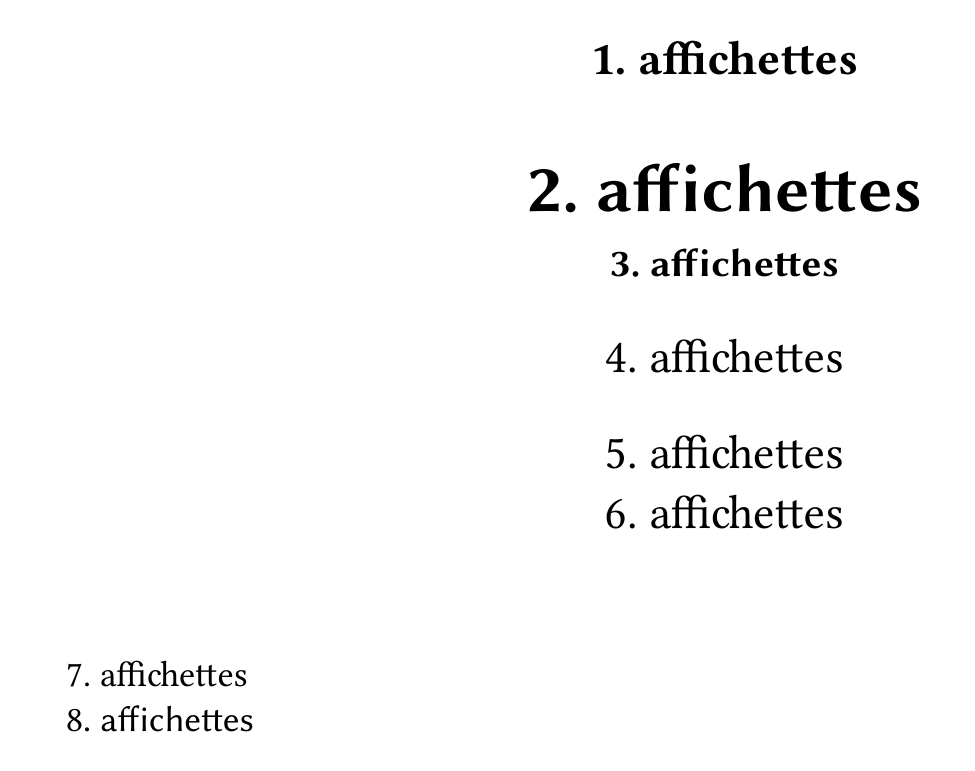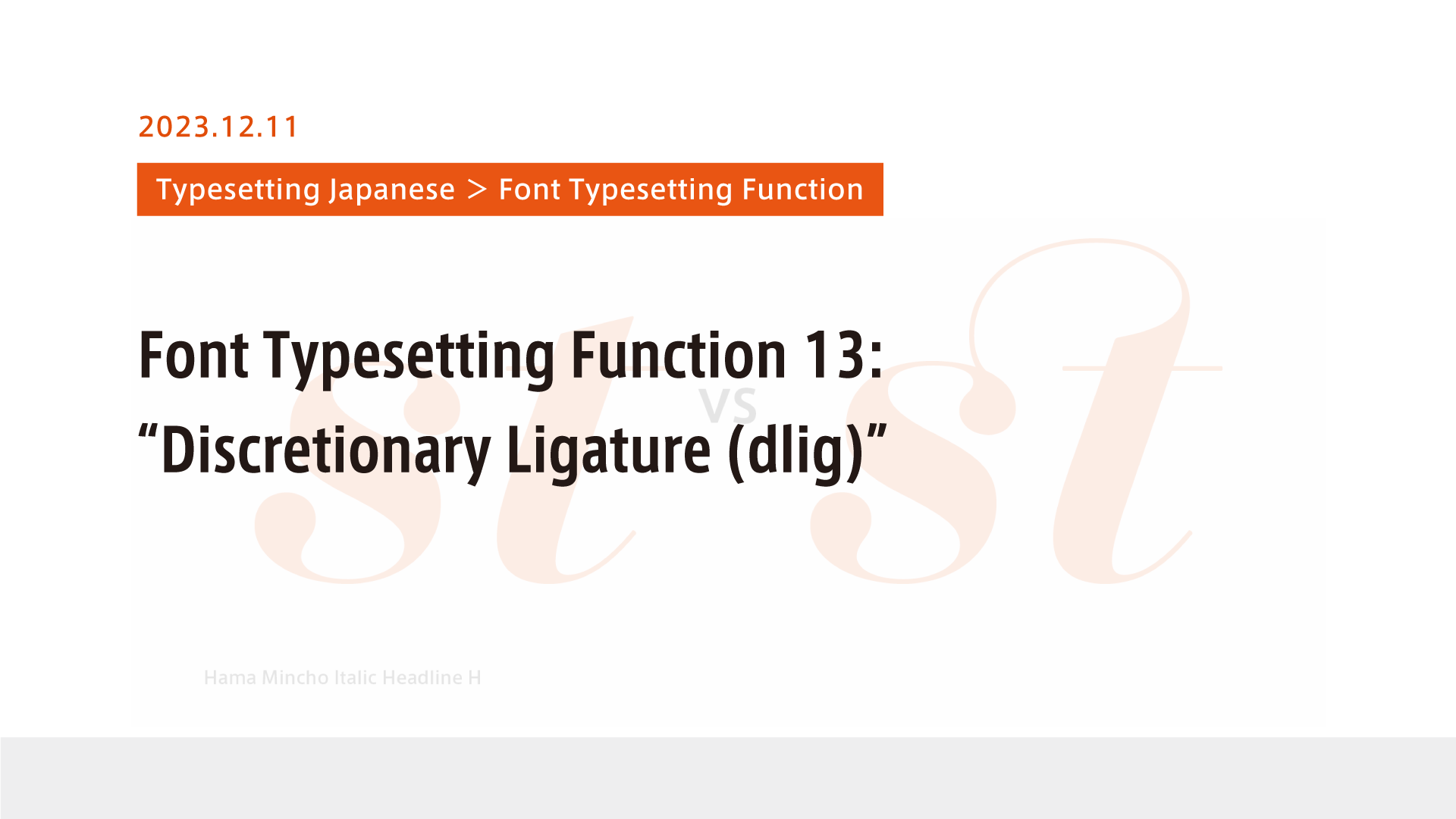
Font Discretionary-Ligatures . The font designer determines that standard ligatures should be used to replace certain letter pairs/triples, whereas discretionary ones may. Not all fonts contain both discretionary and standard ligatures, so it’s useful to check both. Although occasionally found in some type 1 and truetype fonts, discretionary ligatures are more common in newer opentype. A discretionary ligature is more decorative. On the glyphs panel, set the subset of glyphs to discretionary ligatures to access the ligatures included in the font. Many of the new opentype fonts contain more standard ligatures than just these two. A discretionary ligature is more decorative in nature than a standard ligature and should be used at your discretion, as the name indicates.
On the glyphs panel, set the subset of glyphs to discretionary ligatures to access the ligatures included in the font. Although occasionally found in some type 1 and truetype fonts, discretionary ligatures are more common in newer opentype. A discretionary ligature is more decorative. Not all fonts contain both discretionary and standard ligatures, so it’s useful to check both. The font designer determines that standard ligatures should be used to replace certain letter pairs/triples, whereas discretionary ones may. Many of the new opentype fonts contain more standard ligatures than just these two. A discretionary ligature is more decorative in nature than a standard ligature and should be used at your discretion, as the name indicates.
Font Discretionary-Ligatures A discretionary ligature is more decorative in nature than a standard ligature and should be used at your discretion, as the name indicates. The font designer determines that standard ligatures should be used to replace certain letter pairs/triples, whereas discretionary ones may. On the glyphs panel, set the subset of glyphs to discretionary ligatures to access the ligatures included in the font. Many of the new opentype fonts contain more standard ligatures than just these two. Not all fonts contain both discretionary and standard ligatures, so it’s useful to check both. Although occasionally found in some type 1 and truetype fonts, discretionary ligatures are more common in newer opentype. A discretionary ligature is more decorative in nature than a standard ligature and should be used at your discretion, as the name indicates. A discretionary ligature is more decorative.
fonts How to activate Discretionary Ligatures by default with Font Discretionary-Ligatures On the glyphs panel, set the subset of glyphs to discretionary ligatures to access the ligatures included in the font. Not all fonts contain both discretionary and standard ligatures, so it’s useful to check both. Many of the new opentype fonts contain more standard ligatures than just these two. A discretionary ligature is more decorative. Although occasionally found in some. Font Discretionary-Ligatures.
Font Ligatures in VS Code Set up Font ligatures in VS Code YouTube Font Discretionary-Ligatures A discretionary ligature is more decorative. A discretionary ligature is more decorative in nature than a standard ligature and should be used at your discretion, as the name indicates. The font designer determines that standard ligatures should be used to replace certain letter pairs/triples, whereas discretionary ones may. Not all fonts contain both discretionary and standard ligatures, so it’s useful. Font Discretionary-Ligatures.
What are ligatures and how to use them? ONLYOFFICE Blog Font Discretionary-Ligatures On the glyphs panel, set the subset of glyphs to discretionary ligatures to access the ligatures included in the font. Although occasionally found in some type 1 and truetype fonts, discretionary ligatures are more common in newer opentype. Not all fonts contain both discretionary and standard ligatures, so it’s useful to check both. A discretionary ligature is more decorative. The. Font Discretionary-Ligatures.
How To Access Ligatures and Alternates in Script Fonts YouTube Font Discretionary-Ligatures The font designer determines that standard ligatures should be used to replace certain letter pairs/triples, whereas discretionary ones may. On the glyphs panel, set the subset of glyphs to discretionary ligatures to access the ligatures included in the font. A discretionary ligature is more decorative. Although occasionally found in some type 1 and truetype fonts, discretionary ligatures are more common. Font Discretionary-Ligatures.